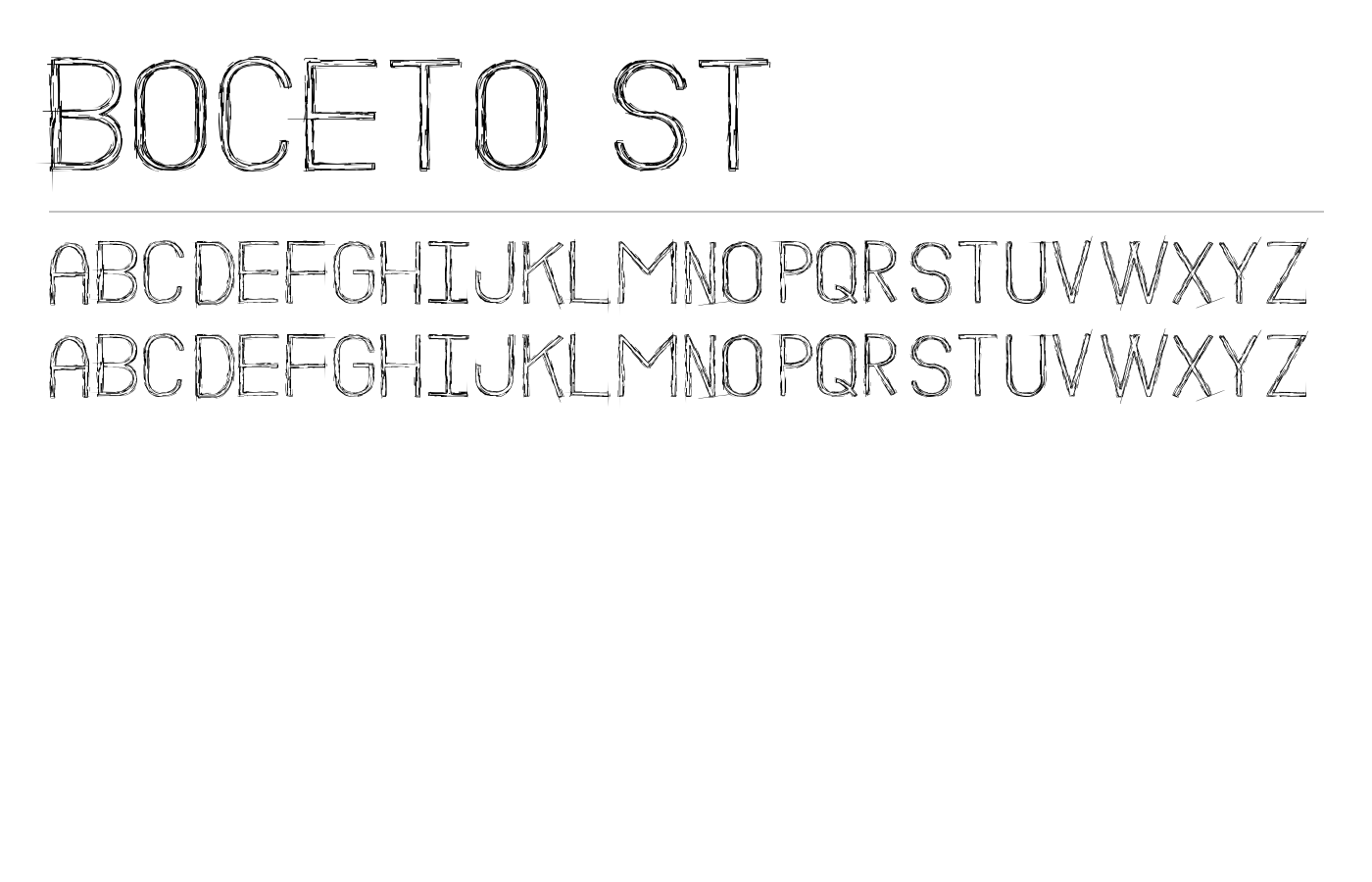
Boceto St is a condensed, hand-drawn sans serif font that features a sketch-like texture with irregular, layered strokes, giving it a lively and informal feel. Its tall, narrow letterforms and uppercase-only design make it perfect for creative projects, logos, or headlines that want to convey a casual, artistic, and handcrafted vibe. This font works well where personality and uniqueness are desired, such as in posters, packaging, or branding for creative industries.
Boceto St Font
About Boceto St Font
| Font family | Boceto St Font |